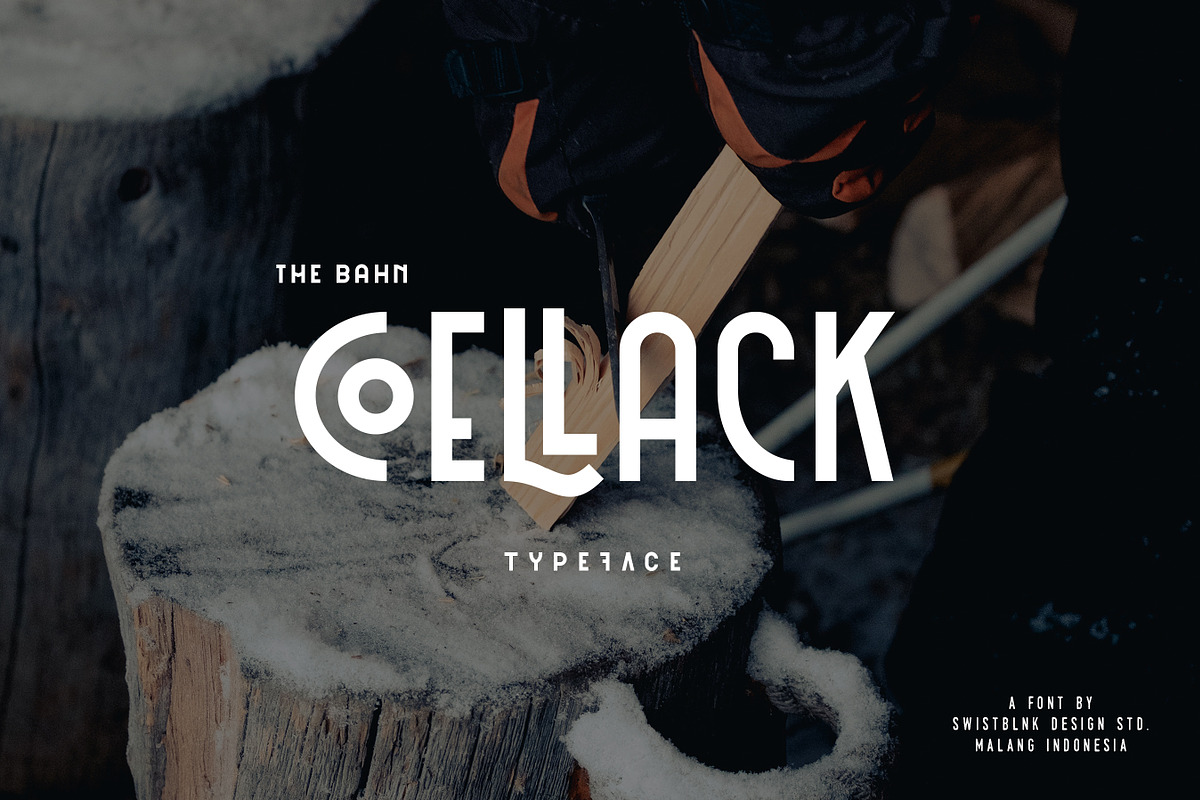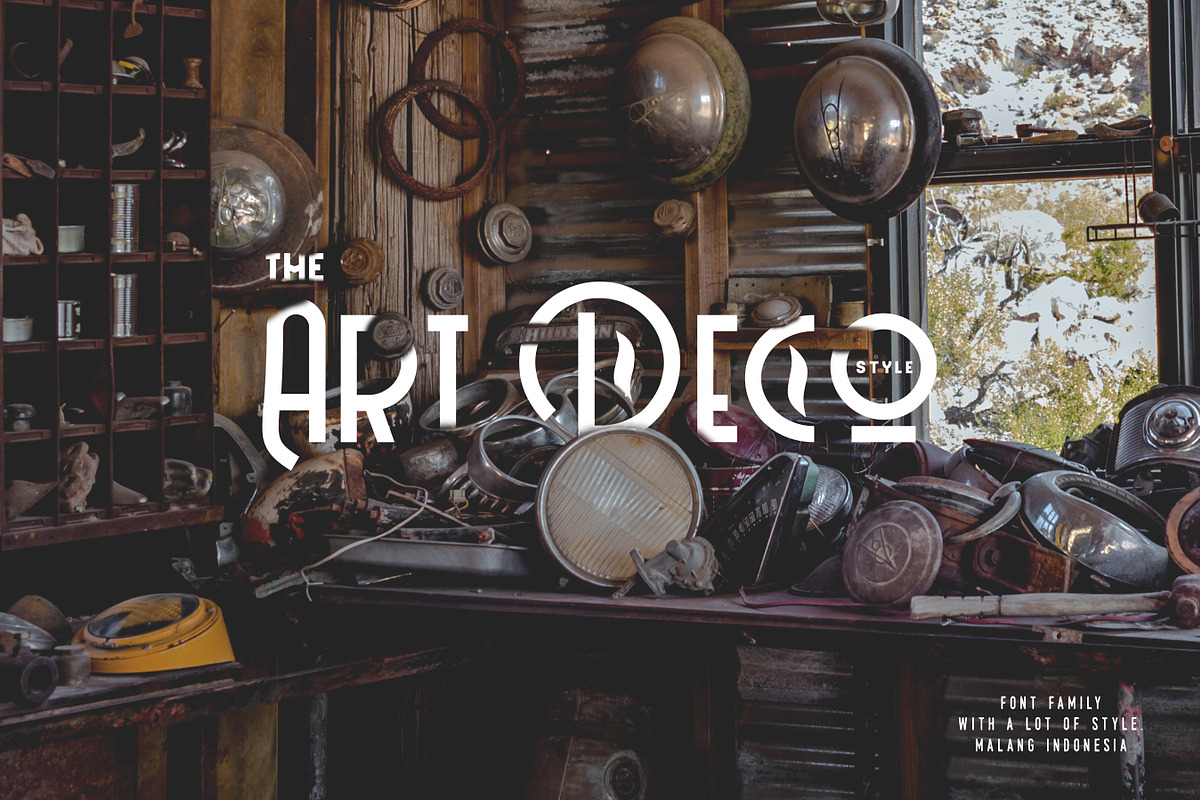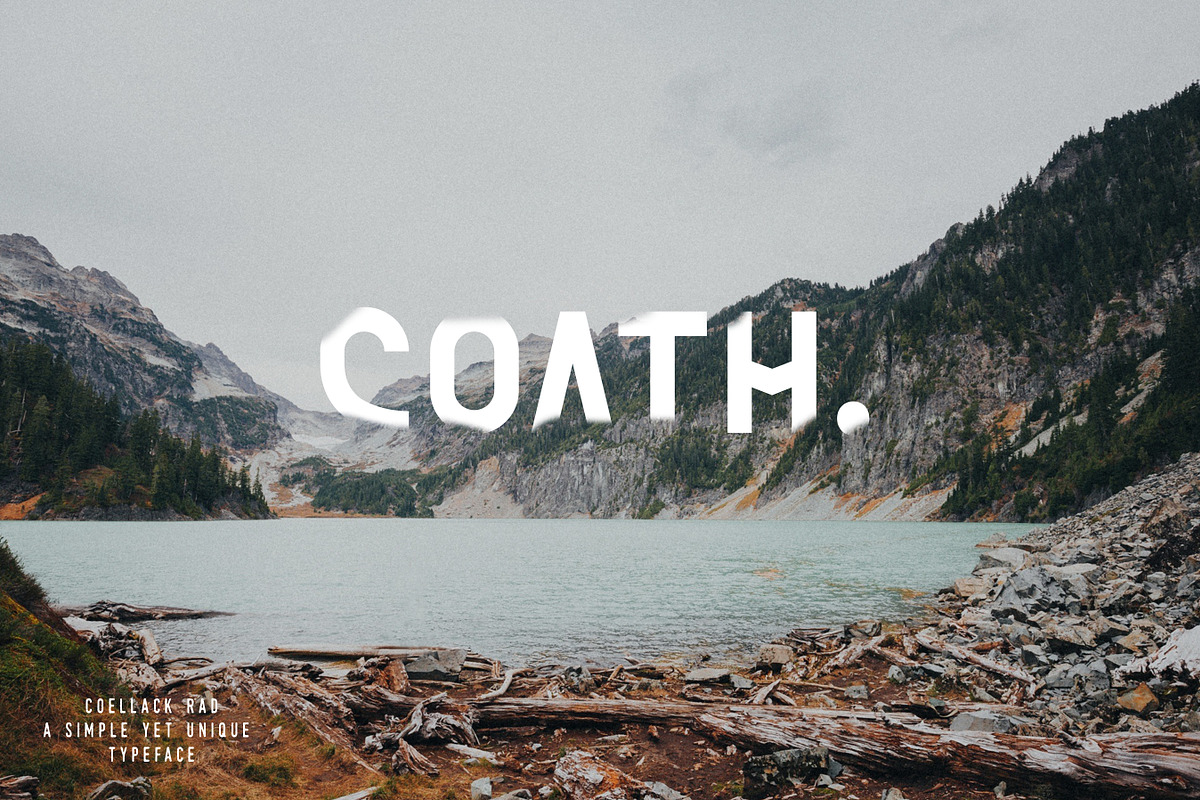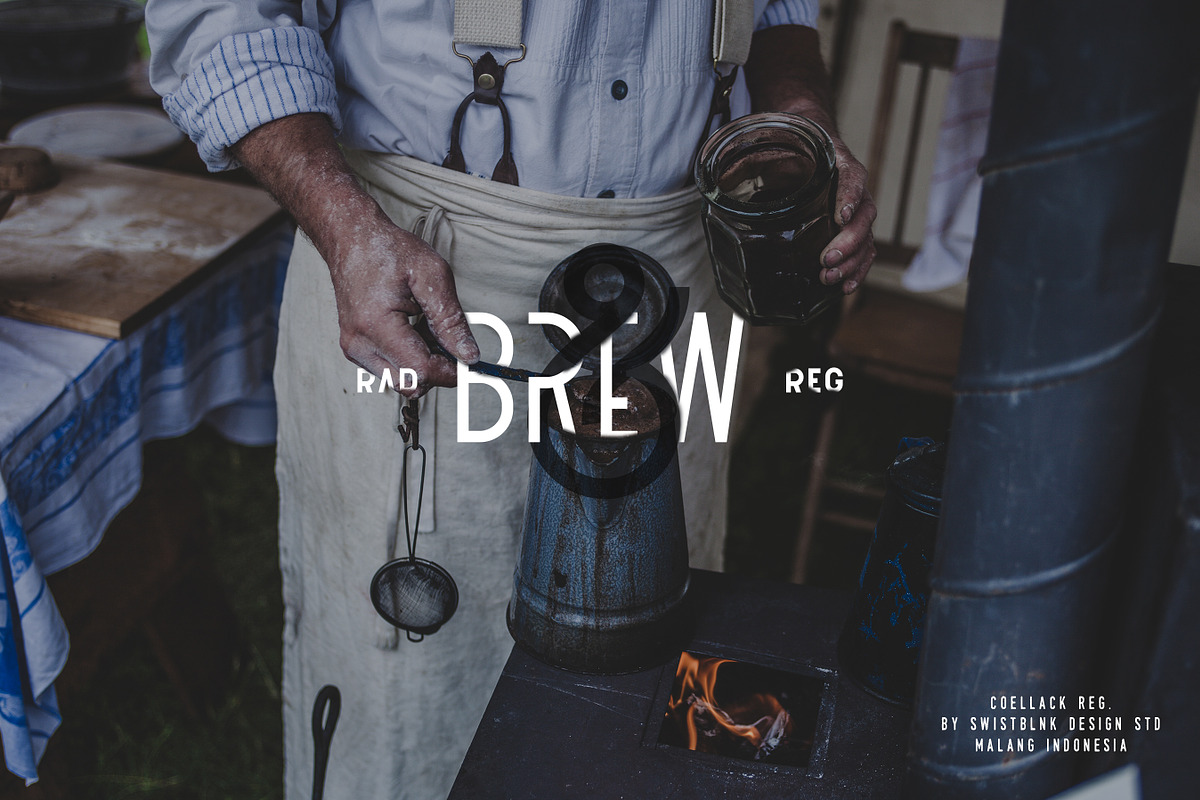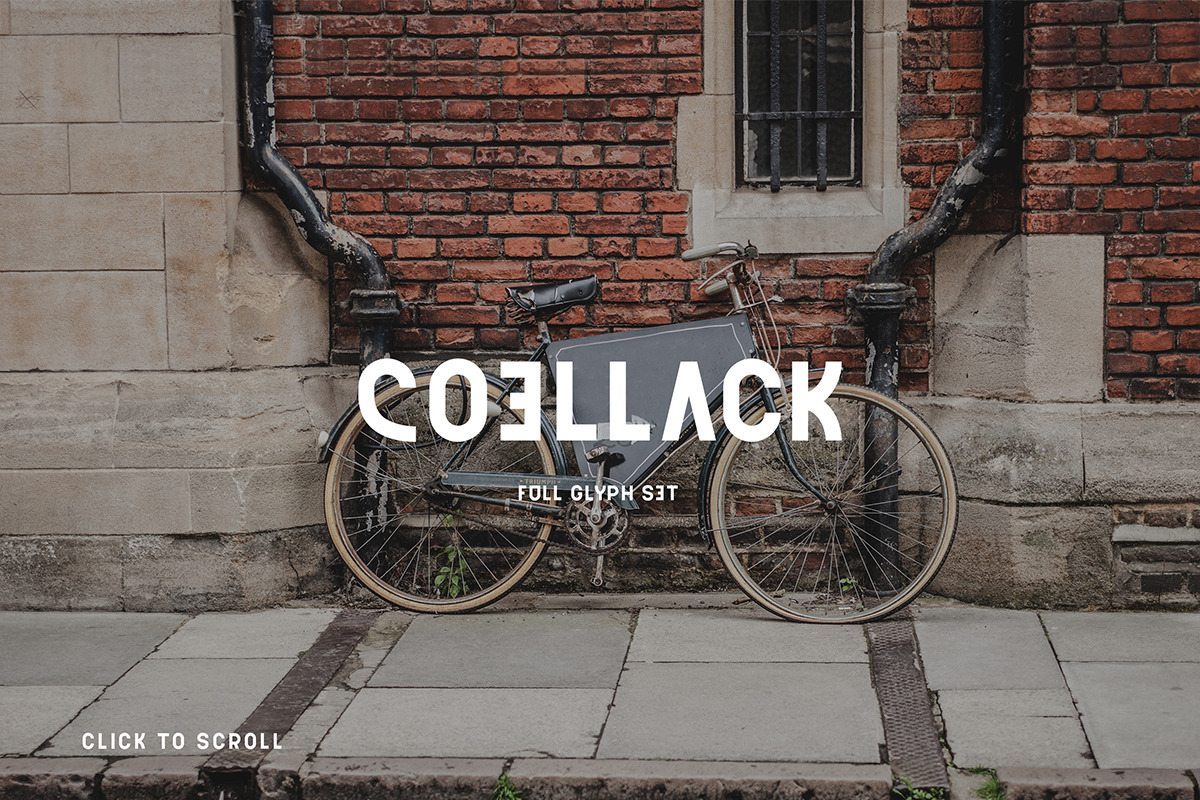
Coellack Typeface
Coellack Typeface by Swistblnk Std. is a font selected for branding, posters, packaging, typography.
Why Coellack Typeface is worth a look
Coellack Typeface by Swistblnk Std. fits naturally into Branding, posters, packaging, typography.